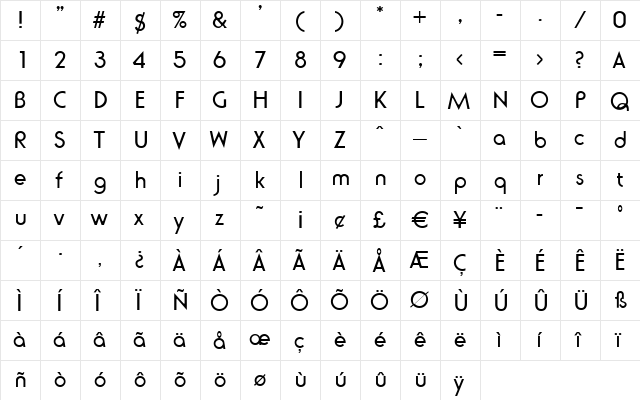
NaomiBecker Regular
Design Context for NaomiBecker Typeface
NaomiBecker offers clean, dependable letterforms without strong stylistic allegiance, making it a practical choice for designers who need flexibility.